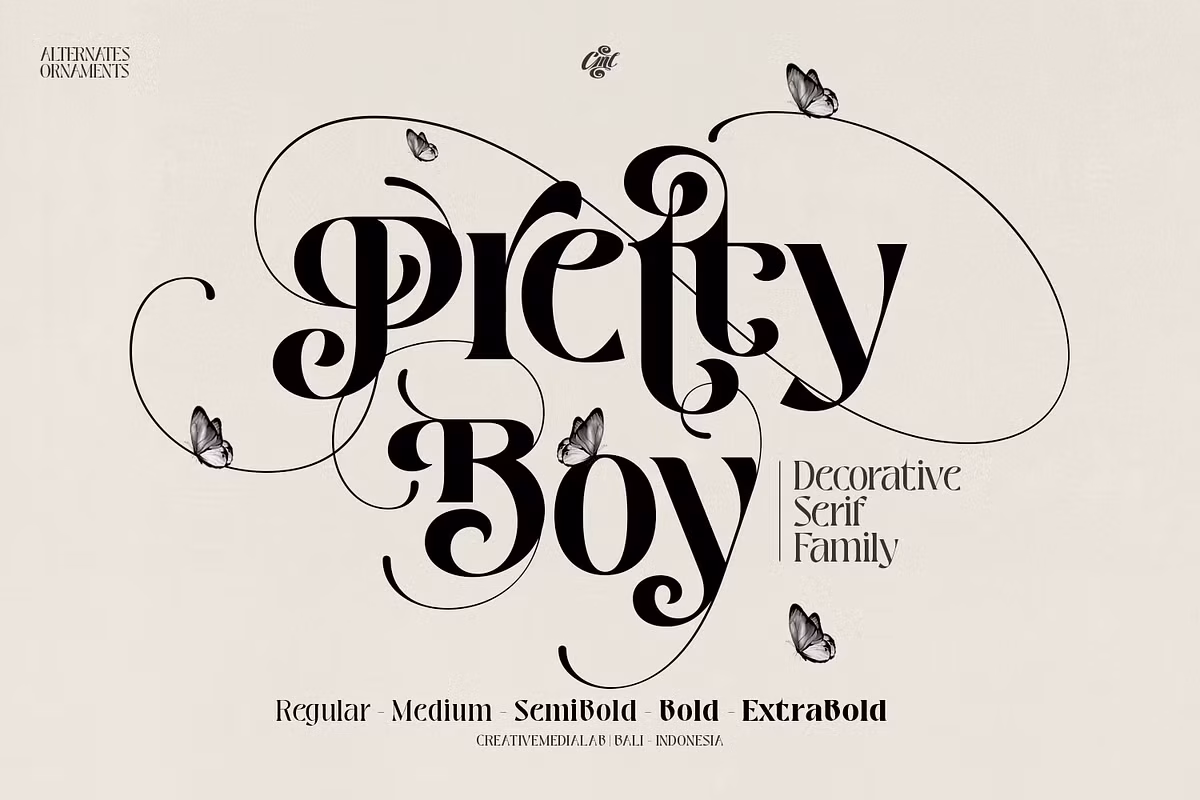
Add a touch of personality and flair to your designs with Pretty Boy - Decorative Serif Family Free Download. This charming serif font family features elegant, decorative letterforms with unique details, making it perfect for branding, packaging, logos, and high-end editorial designs.
Pretty Boy brings a modern twist to classic serif styling, with each letter exuding sophistication and creativity. The font family includes various weights and styles, making it versatile for both headlines and body text. It includes uppercase and lowercase letters, numerals, punctuation, and multilingual support, providing everything you need for testing bold and stylish layouts.